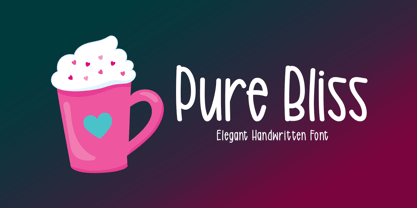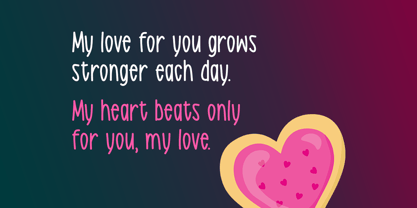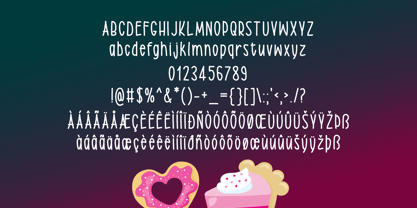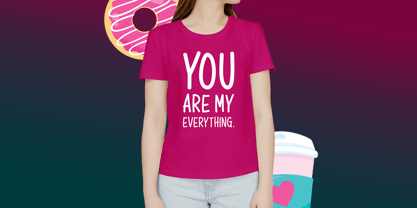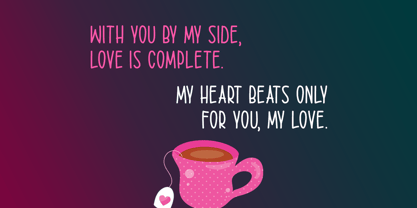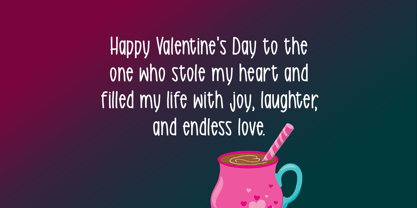
Pure Bliss
by Seemly Fonts
The Pure Bliss Font Family was designed by Md Shohail Bhuian and published by Seemly Fonts. Pure Bliss contains 1 styles.
Experience the pure joy of Pure Bliss, a handwritten font that arouses sentiments of coziness and affection. For productions that seek to emotionally engage spectators, its enticing storyline is perfect. Pure Bliss brings a touch of genuine charm to any design, whether it's inspirational quotations, appealing social media graphics, or beautiful wedding invites and sincere greeting cards.
Designers: Md Shohail Bhuian
Publisher: Seemly Fonts
Foundry: Seemly Fonts